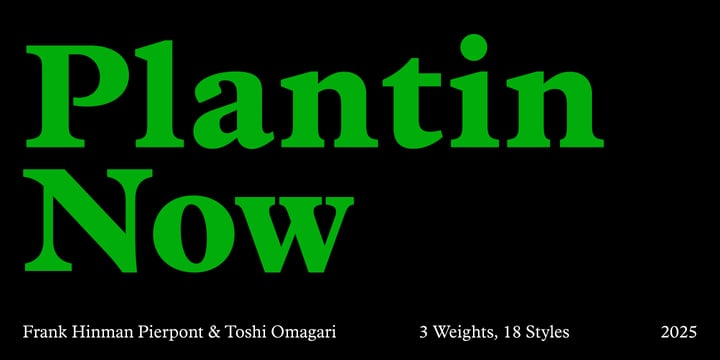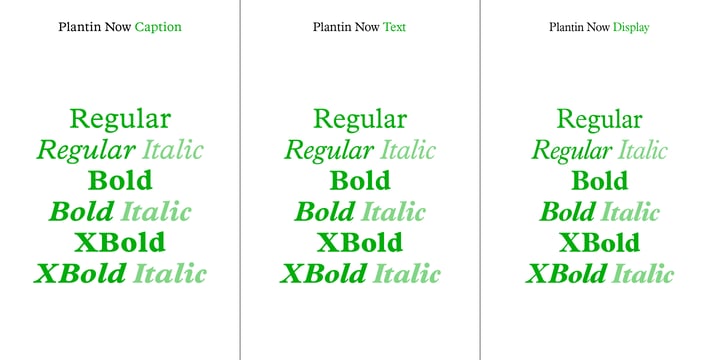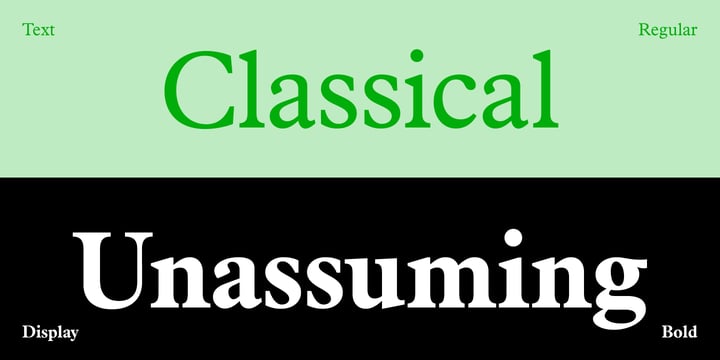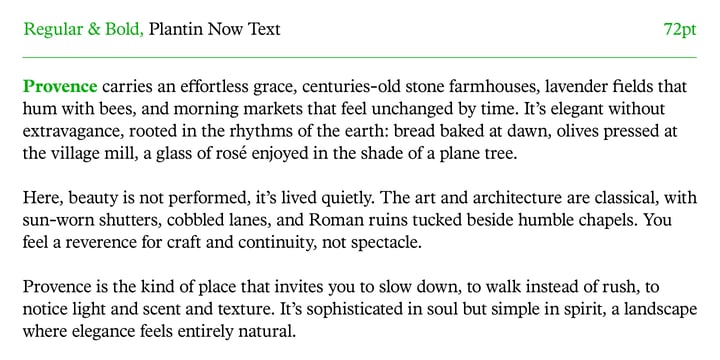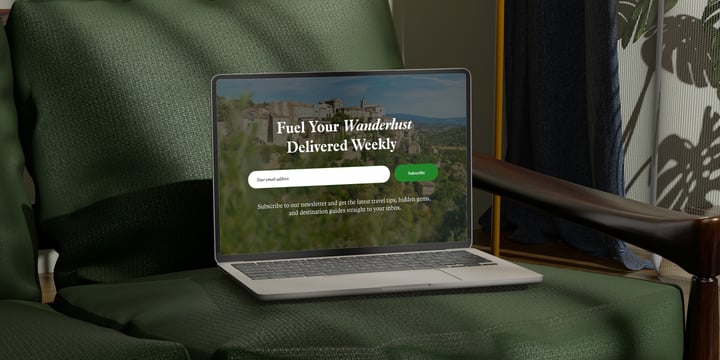
Frank Hinman Pierpont
The designer Frank Hinman Pierpont (born 1860 in New Haven, died 1937 in London) created the font in 1913. Plantin, the man, was a well-known Dutch printer of the 16th century whose font foundry turned out traditional Old Face fonts and the italic cut of Garamond. Frank Hinman Pierpont designed Plantin, the font, based on such fonts, and Stanley Morison and Victor Lardent in turn based their Times New Roman™ design on Plantin. In the style of Garamond, this font is exceptionally legible and makes a classic, elegant impression. Plantin is part of the Linotype Library. Plantin is a trademark of Monotype Typography.